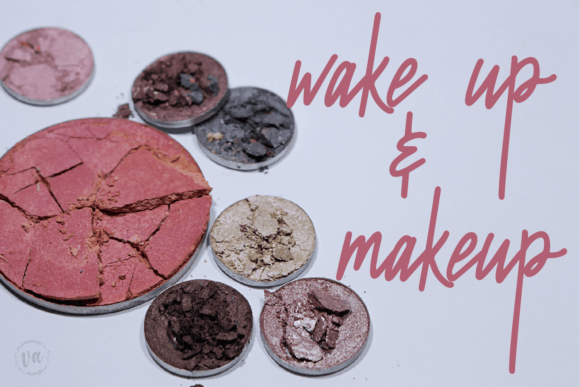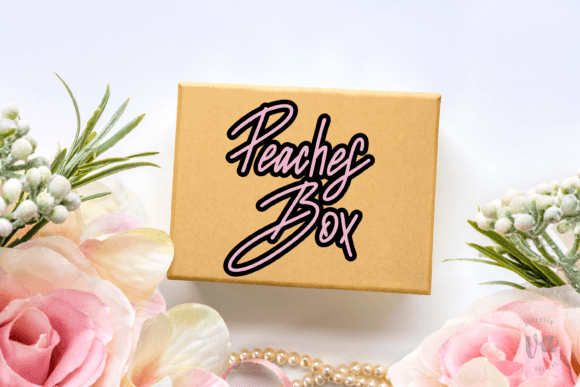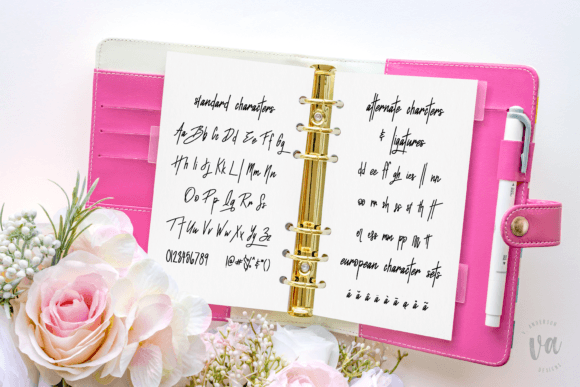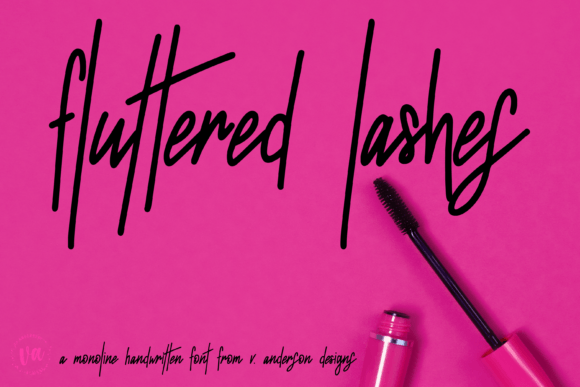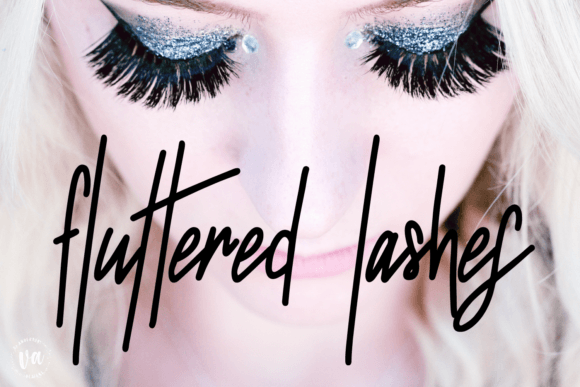
Introducing Fluttered Lashes Font: Elevate Your Designs with a Touch of Handwritten Charm
Are you tired of using the same old fonts for your designs? Do you want to add a personal touch to your greeting cards, branding, and crafting files? Look no further than Fluttered Lashes Font, a beautiful handwritten monoline font that will take your designs to the next level.
What is Fluttered Lashes Font?
Fluttered Lashes Font is a carefully crafted handwritten monoline font that features both discretionary and standard ligatures. This unique combination gives your text a natural, handwritten feel that’s perfect for a variety of design applications. Whether you’re creating greeting cards, logos, or crafting files, Fluttered Lashes Font is the perfect choice.
Key Features of Fluttered Lashes Font
- Handwritten Monoline Font: Fluttered Lashes Font is a handwritten monoline font that features smooth, flowing lines and a natural, effortless look.
- Discretionary and Standard Ligatures: The font includes both discretionary and standard ligatures, which allow you to create a unique and personalized look for your text.
- Perfect for Handwritten Designs: Fluttered Lashes Font is designed to give your text a handwritten feel, making it perfect for greeting cards, fun branding, and crafting files.
Why Choose Fluttered Lashes Font?
There are many fonts available for designers and crafters, but Fluttered Lashes Font stands out from the crowd. Here are just a few reasons why:
- Unique and Personalized Look: The combination of discretionary and standard ligatures in Fluttered Lashes Font allows you to create a unique and personalized look for your text.
- Versatile: Fluttered Lashes Font is perfect for a variety of design applications, including greeting cards, logos, and crafting files.
Inspiration for Using Fluttered Lashes Font
Fluttered Lashes Font is a versatile font that can be used in a variety of design applications. Here are a few ideas to get you started:
- Greeting Cards: Use Fluttered Lashes Font to create beautiful, handmade-style greeting cards for special occasions.
- Fun Branding: Add a personal touch to your branding with Fluttered Lashes Font, perfect for businesses that want to stand out.
- Crafting Files: Use Fluttered Lashes Font to create custom crafting files, such as SVG files and printable art.
Fluttered Lashes Font is a beautiful handwritten monoline font that’s perfect for designers and crafters who want to add a personal touch to their designs. With its unique combination of discretionary and standard ligatures, Fluttered Lashes Font is sure to elevate your designs and give them a handmade feel. Try it today and see the difference for yourself!